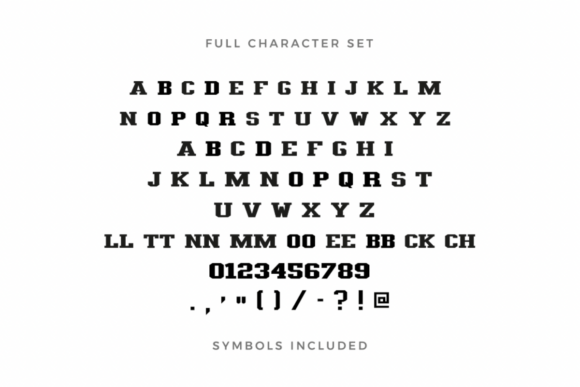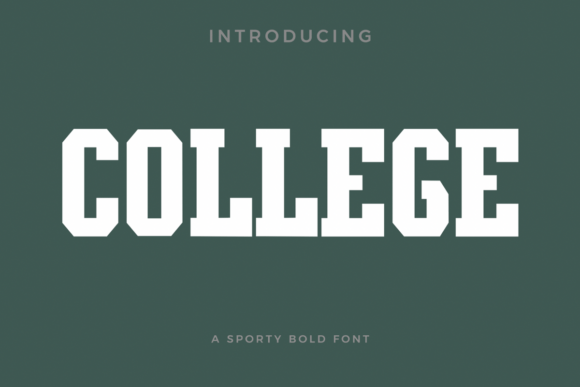
Introducing College: The Ultimate Font for Athleticism and Academia
In the world of typography, fonts play a crucial role in conveying the tone and personality of a brand, product, or message. For designers, crafters, and enthusiasts alike, finding the perfect typeface can be a daunting task. However, if you’re looking for a font that embodies the spirit of athleticism and academia, look no further than College. This distinctive typeface is specifically designed to capture the essence of sporty vigor and collegiate elegance, making it the perfect choice for projects that require a unique blend of dynamism and sophistication.
The Inspiration Behind College
The College font draws inspiration from the energetic feel of sports and the intellectual environment of universities. By combining these two seemingly disparate elements, College creates a unique and captivating visual identity that sets it apart from other typefaces. The font’s design is rooted in the idea that athleticism and academia are not mutually exclusive, but rather complementary aspects of a well-rounded individual. This philosophy is reflected in the font’s bold, yet refined aesthetic, which is perfect for conveying a sense of confidence, energy, and sophistication.
Key Features of the College Font
So, what makes the College font so special? Here are just a few of its key features:
- Unique blend of athleticism and academia: College is the perfect fusion of sporty vigor and collegiate elegance, making it an ideal choice for projects that require a distinctive visual identity.
- Bold and refined aesthetic: The font’s bold, yet refined design makes it perfect for conveying confidence, energy, and sophistication.
- Highly legible: Despite its bold design, College is highly legible, making it perfect for use in a variety of applications, from headlines and titles to body copy and captions.
- Versatile: College is a versatile font that can be used in a wide range of projects, from sports branding and marketing materials to academic publications and university branding.
Why Choose the College Font?
With so many fonts to choose from, why should you choose College? Here are just a few reasons why College stands out from the rest:
- Stand out from the crowd: College is a truly unique typeface that will help you stand out from the crowd and capture the attention of your audience.
- Convey your message with style: With College, you can convey your message with style and sophistication, making it perfect for projects that require a high level of professionalism.
- Tribute to sportsmanship and scholarly pursuits: College is more than just a font – it’s a tribute to the unparalleled world of sportsmanship and scholarly pursuits.
Using the College Font in Your Designs
So, how can you use the College font in your designs? Here are just a few ideas to get you started:
- Sports branding: Use College to create bold and eye-catching sports branding, including logos, jerseys, and marketing materials.
- Academic publications: College is perfect for academic publications, including journals, books, and research papers.
- University branding: Use College to create a distinctive visual identity for your university or college, including logos, brochures, and website headers.
- Marketing materials: College is perfect for marketing materials, including flyers, posters, and social media graphics.
In conclusion, the College font is a truly unique and captivating typeface that embodies the spirit of athleticism and academia. With its bold, yet refined aesthetic, College is perfect for designers, crafters, and enthusiasts alike who are looking for a font that will help them stand out from the crowd. Whether you’re working on a sports branding project, academic publication, or university branding initiative, College is the perfect choice. So why wait? Download College today and experience the power of a truly distinctive typeface.